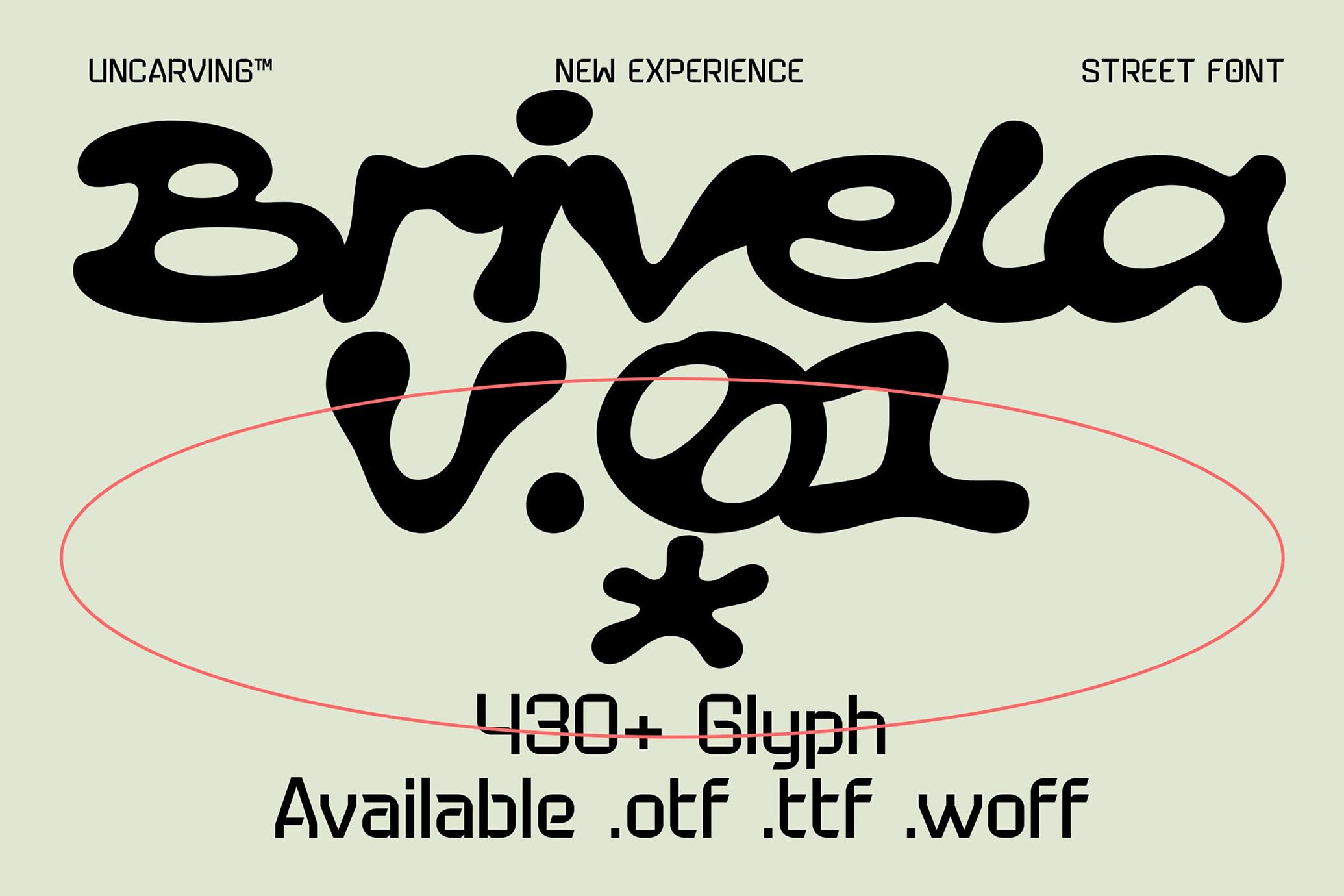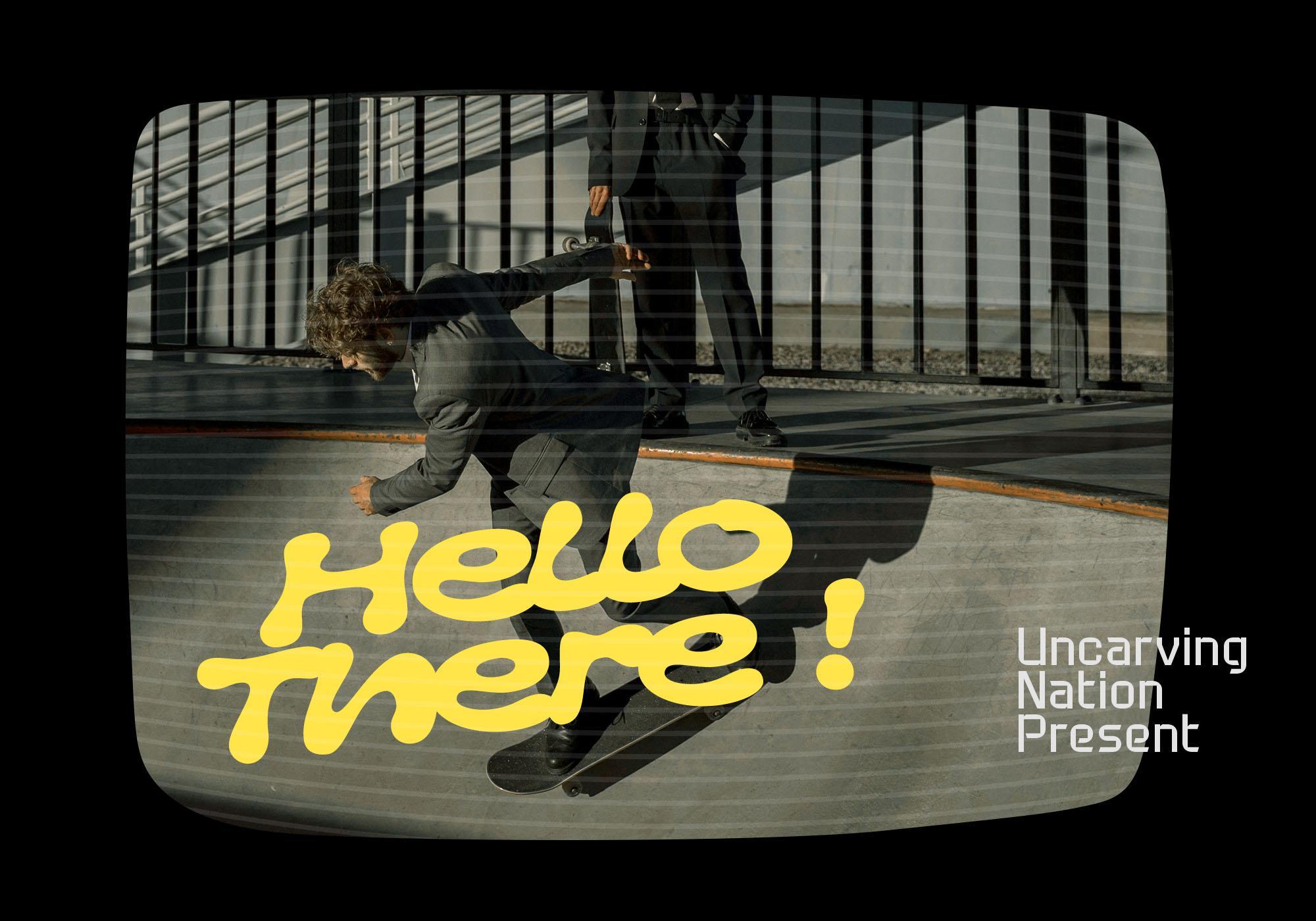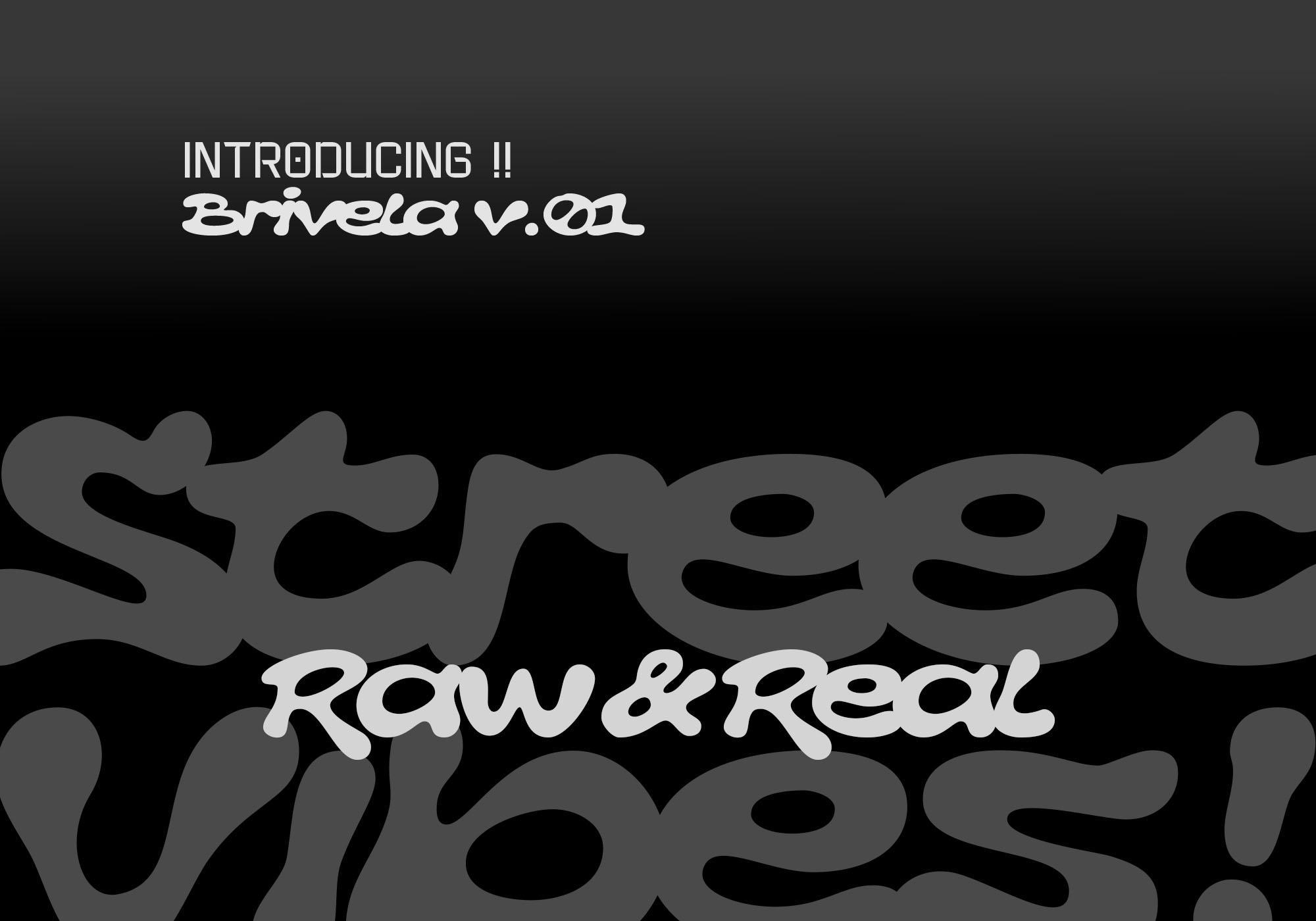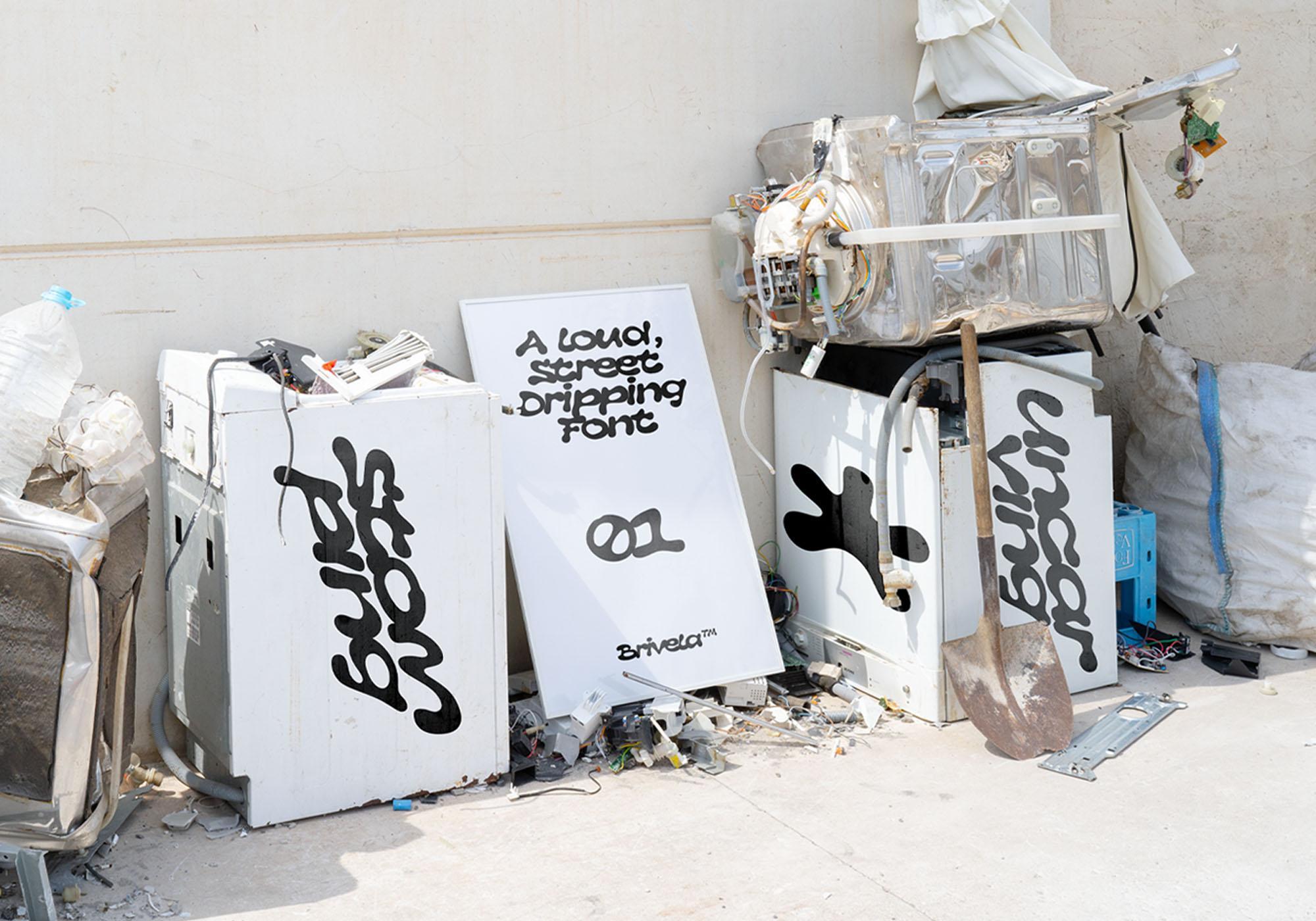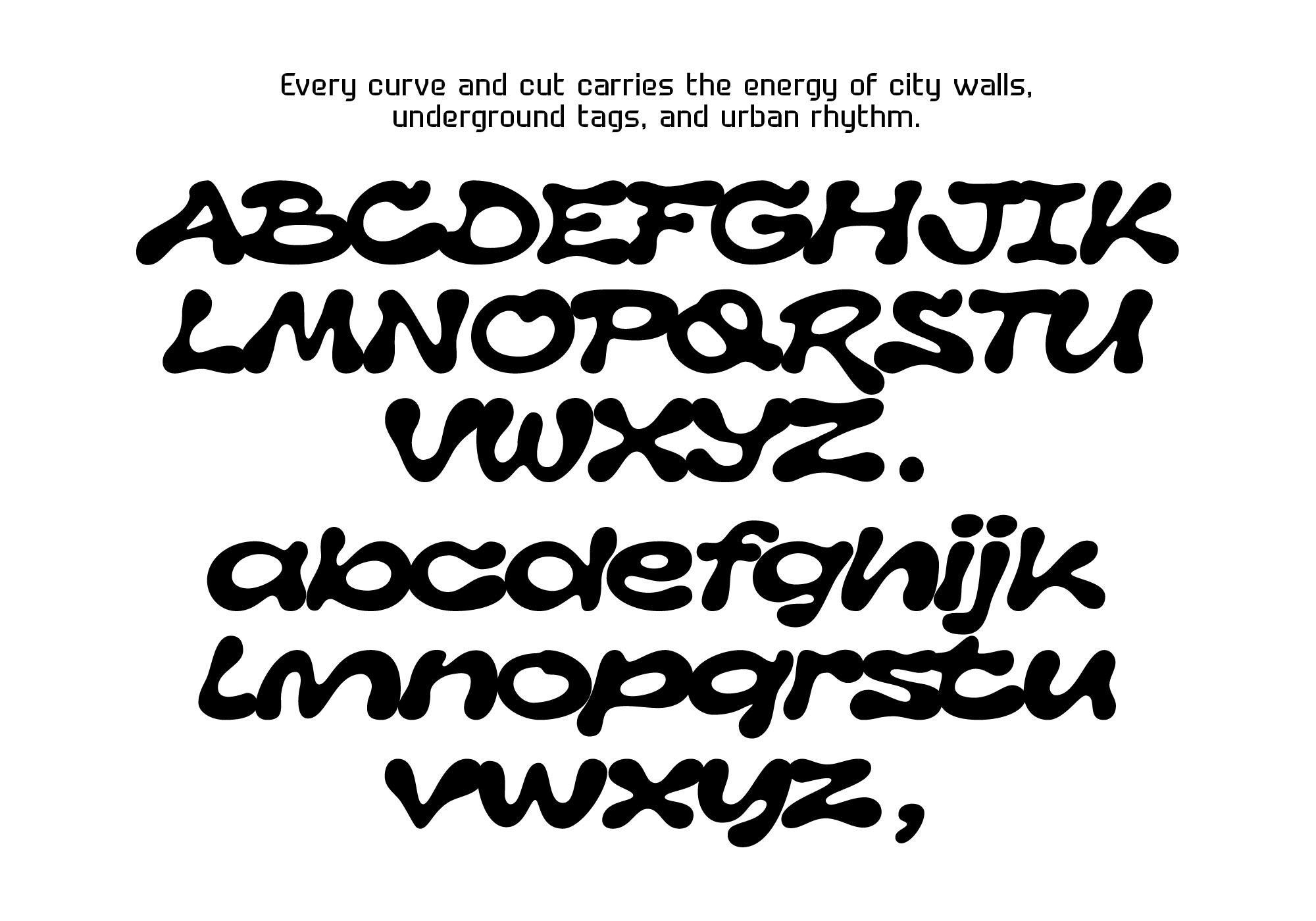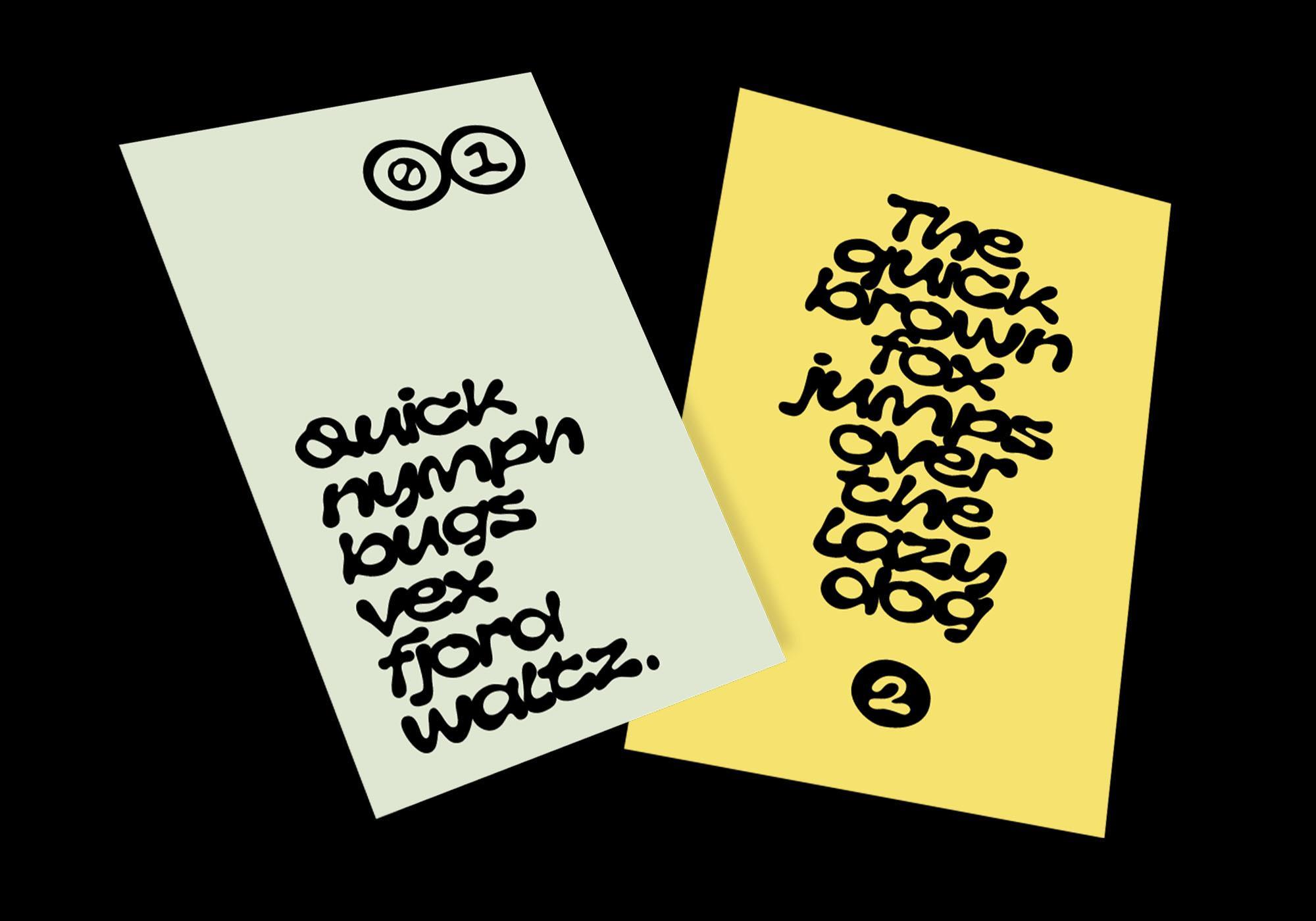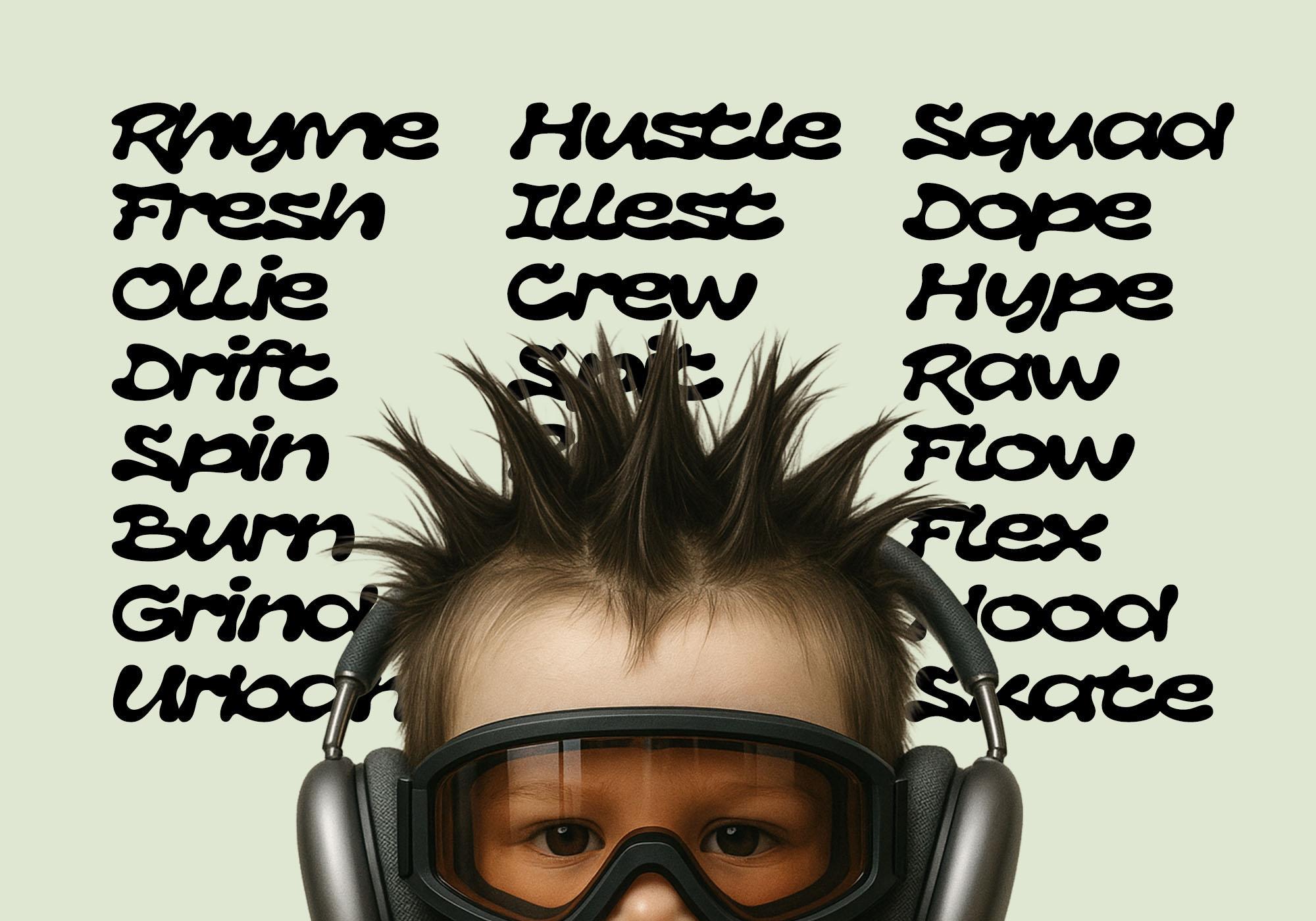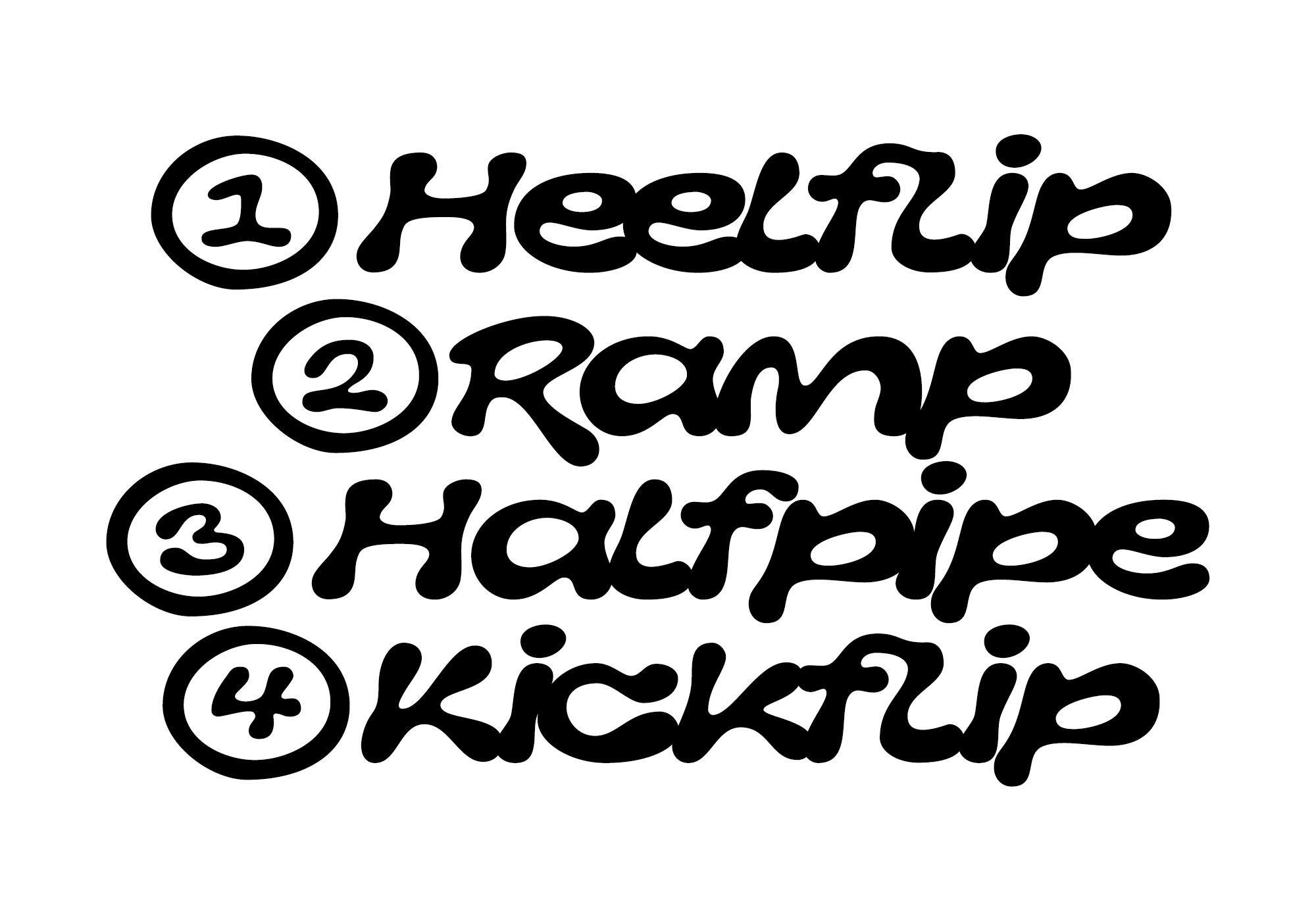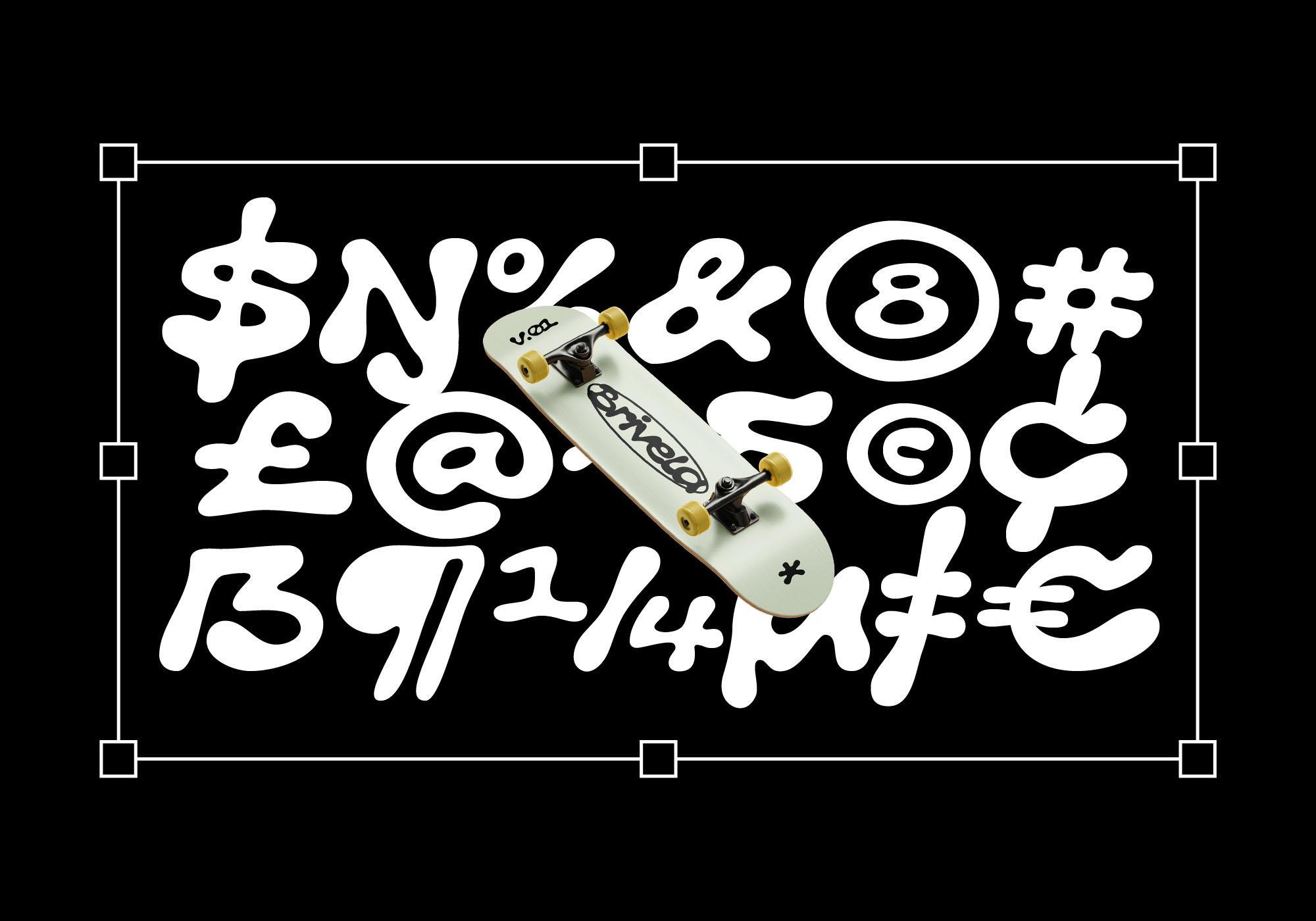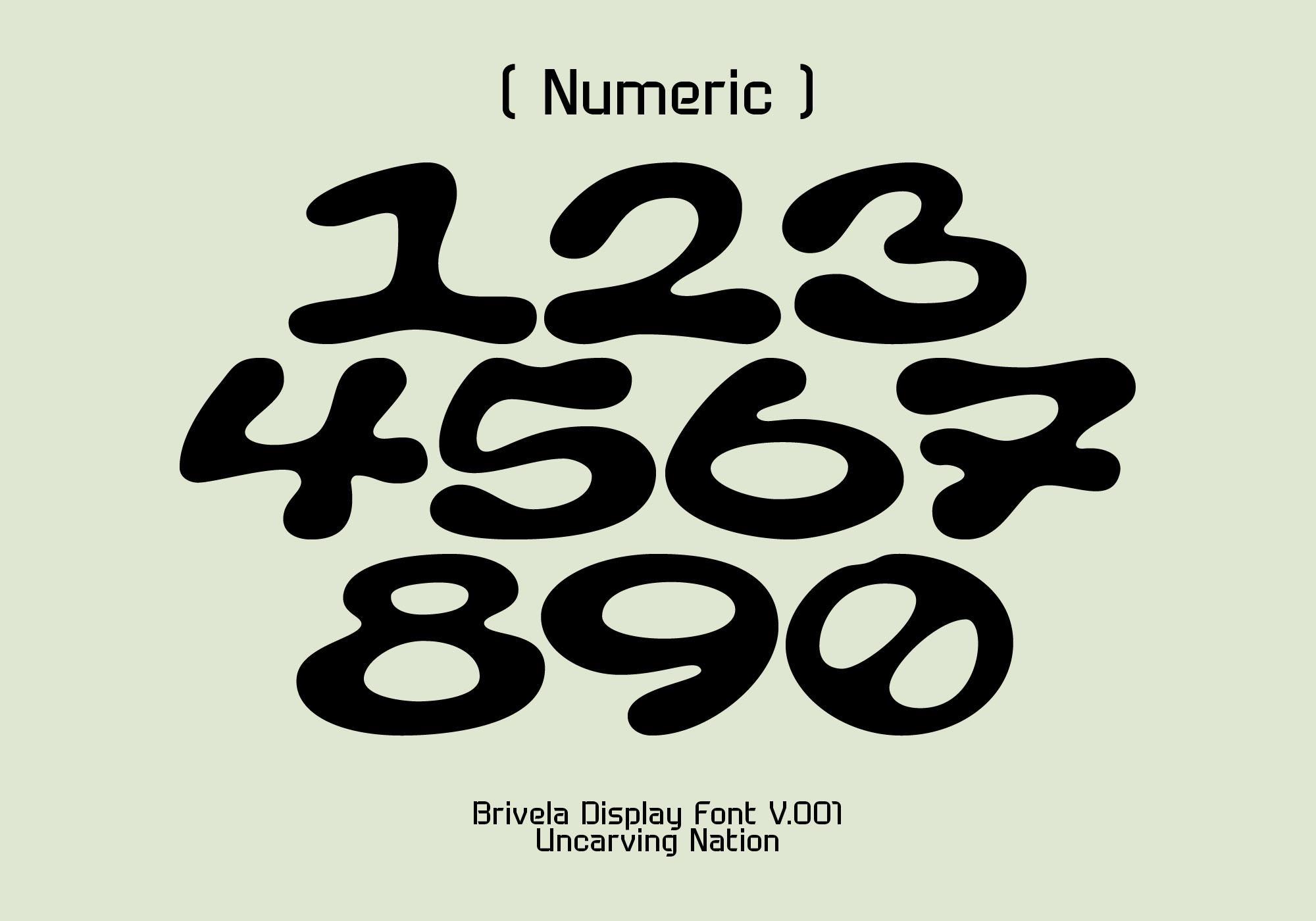
Brivela - Display Font
Brivela is a bold display font inspired by the street lettering. It’s a strong fit for projects that thrive on attitude: music artwork, streetwear branding, event posters, zines, logotypes, packaging, and digital campaigns. Its chunky, hand-drawn forms carry the rhythm of graffiti tags and skate culture — every curve and drip suggests motion, just like spray paint on a wall. The set includes over 430 glyphs with uppercase, lowercase, numerals, punctuation, and multilingual support, delivered in OTF, TTF, and WOFF formats.